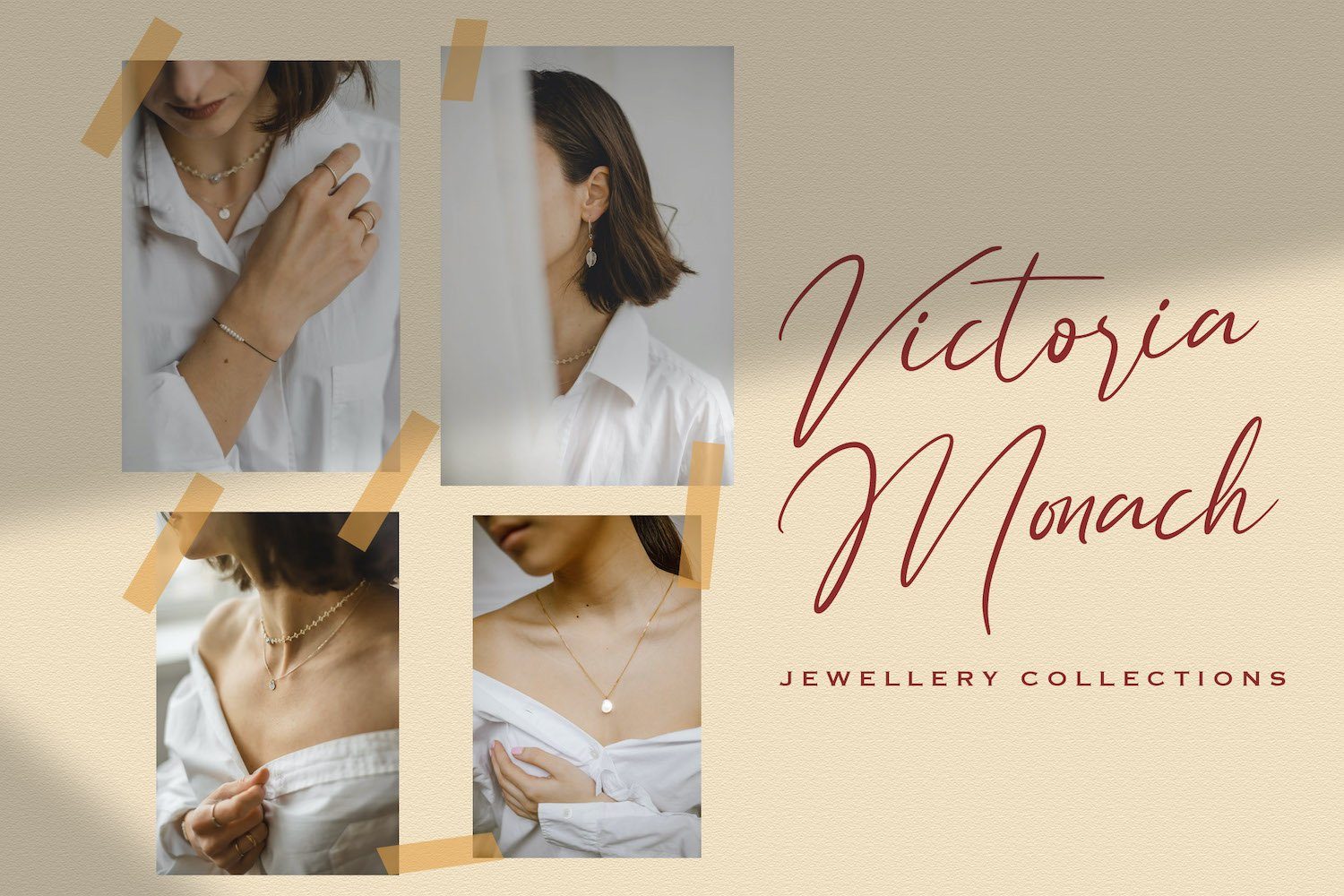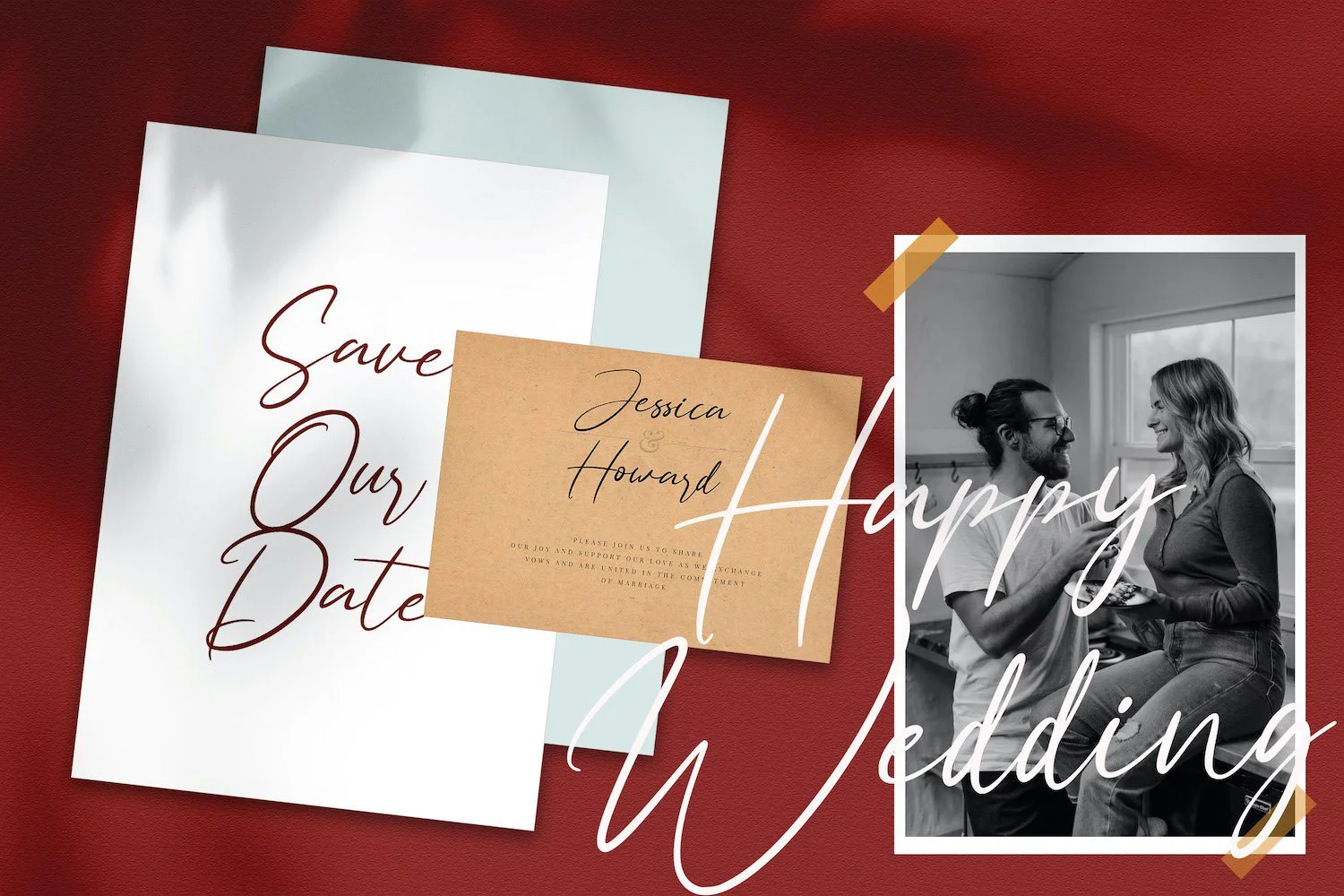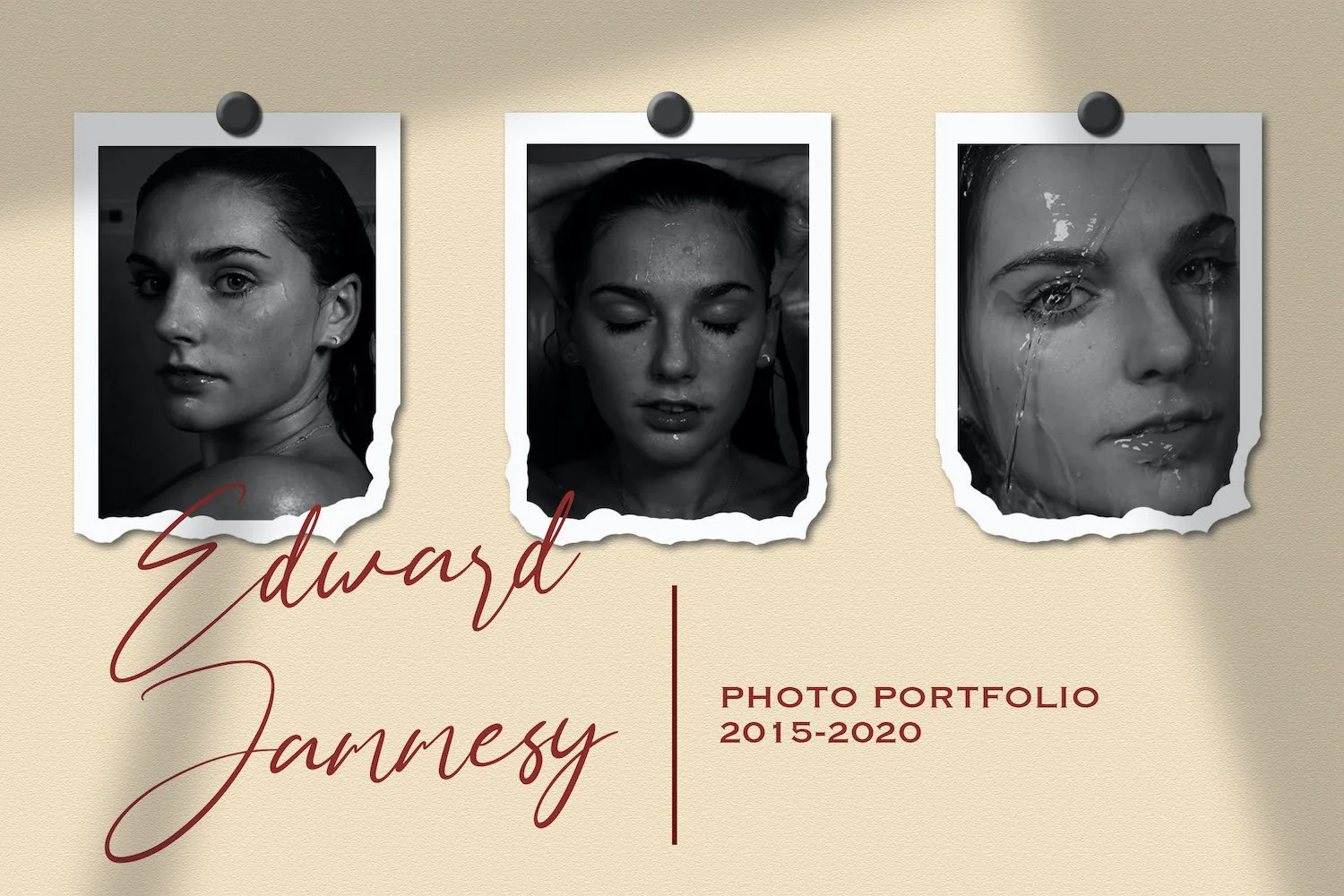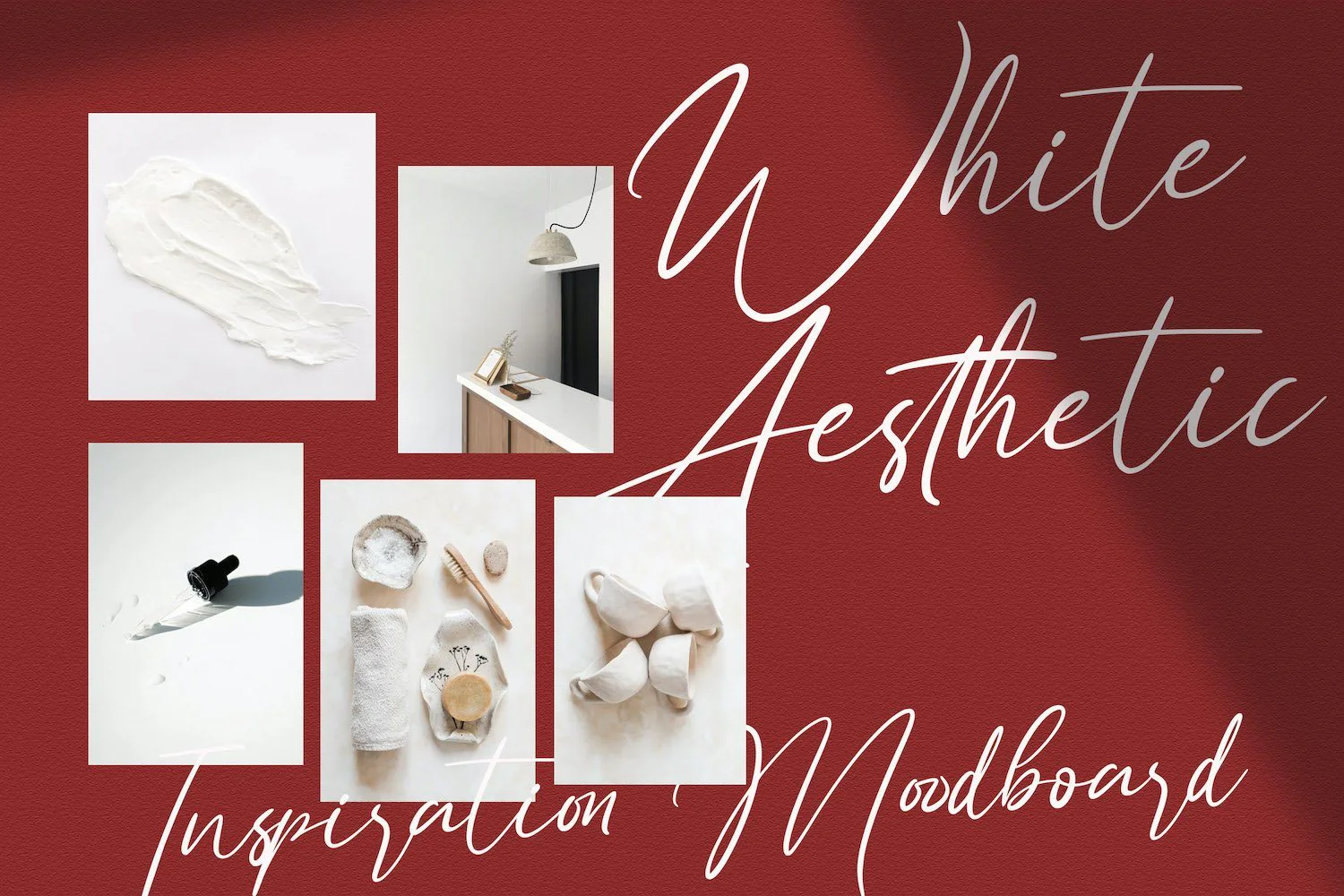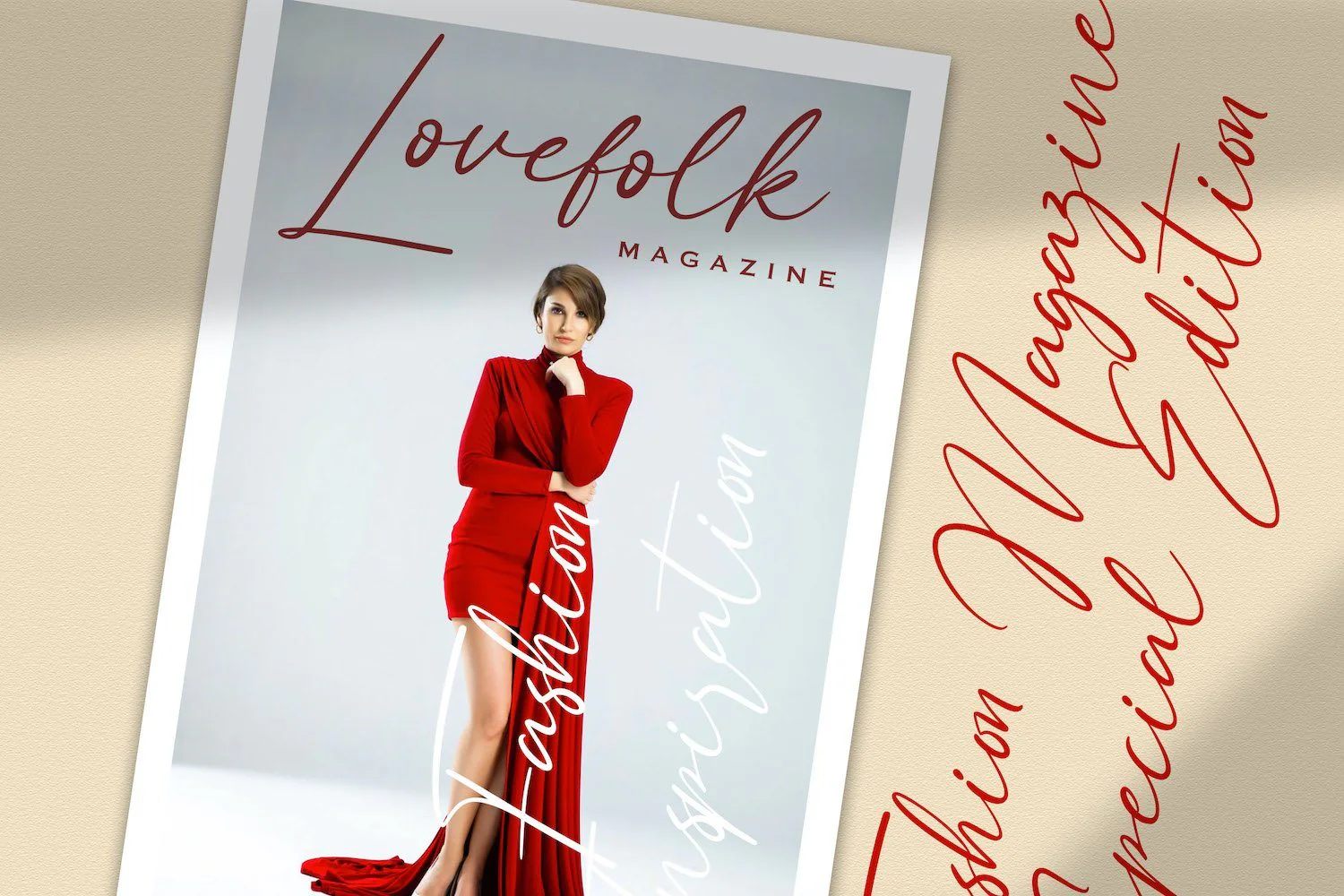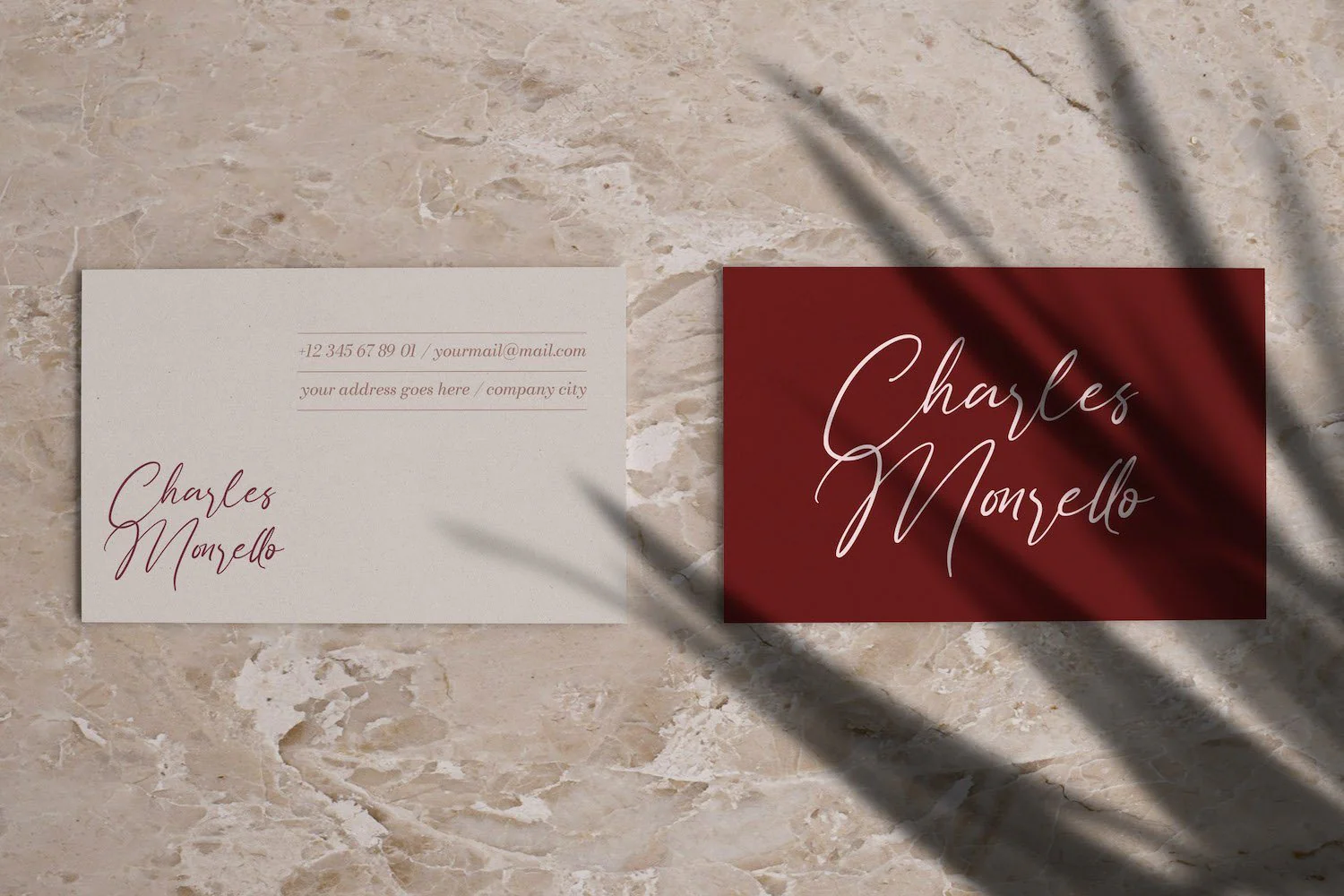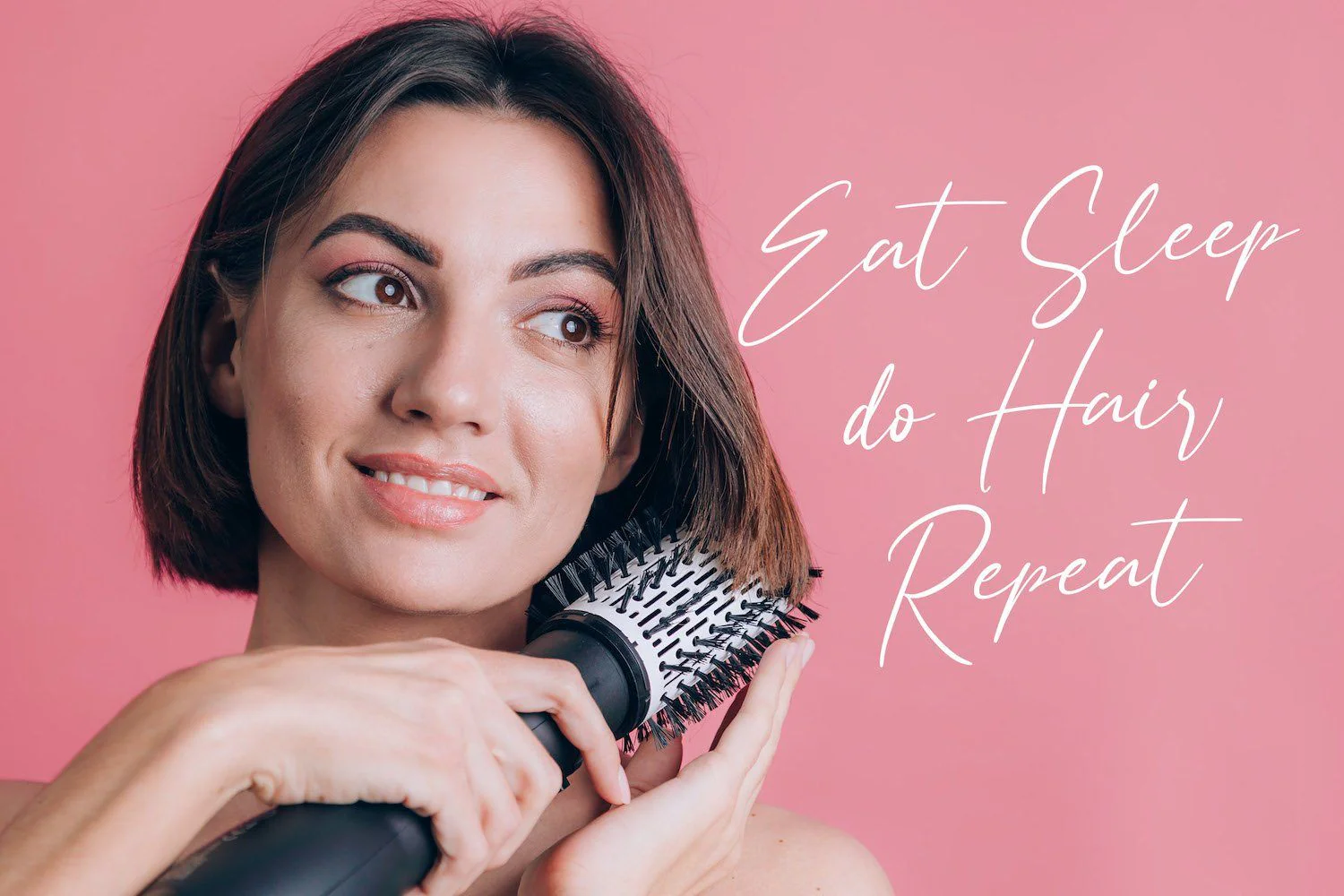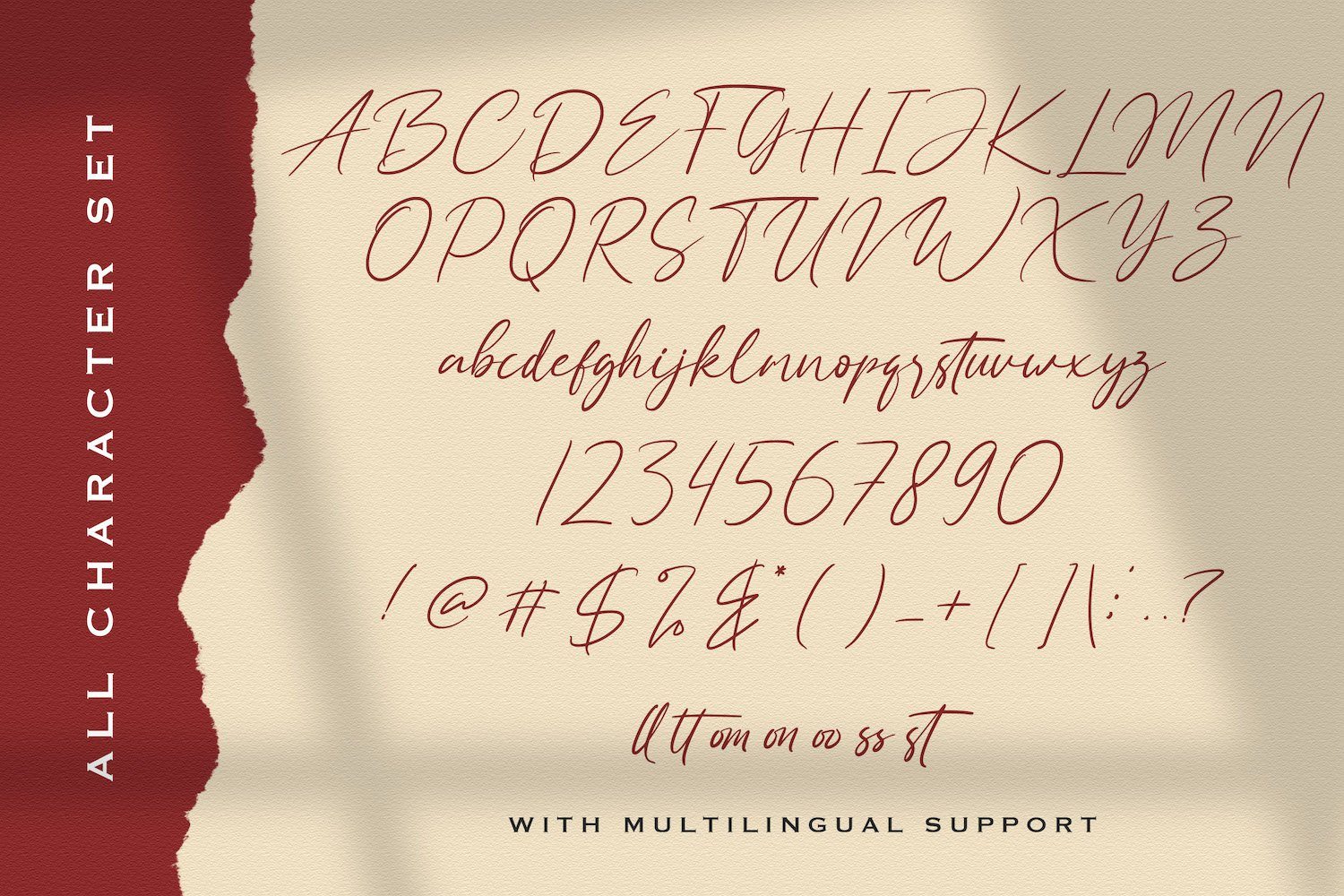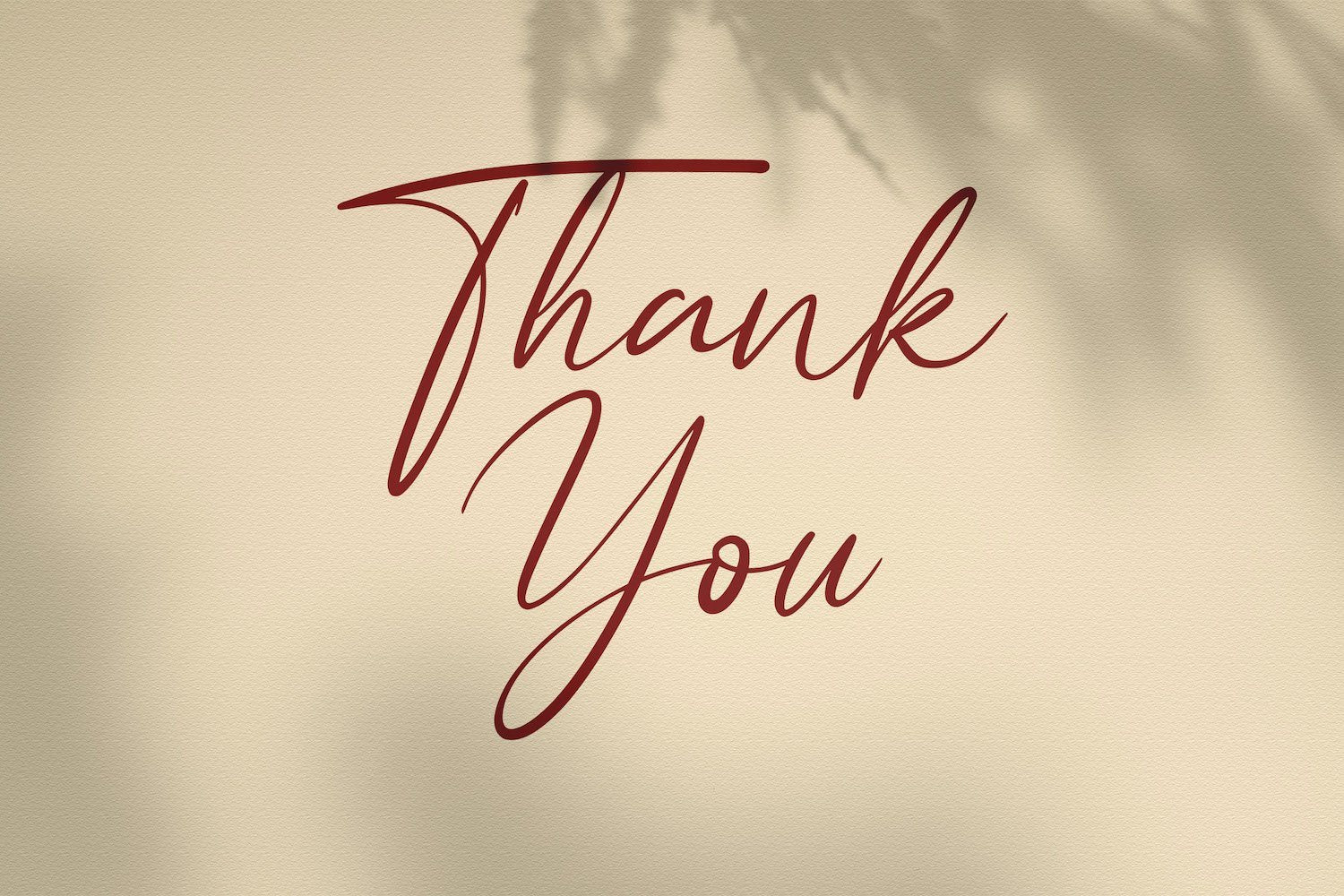
Hay Catty - Handwritten Font
Introducing Hay Catty - Handwritten Font
Hay Catty is a delicate, elegant and flowing handwritten font. It has beautiful and well balanced characters and as a result, it matches a wide pool of designs. Add it to your most creative ideas and notice how it makes them come alive!
Introducing Hay Catty - Handwritten Font
Hay Catty is a delicate, elegant and flowing handwritten font. It has beautiful and well balanced characters and as a result, it matches a wide pool of designs. Add it to your most creative ideas and notice how it makes them come alive!